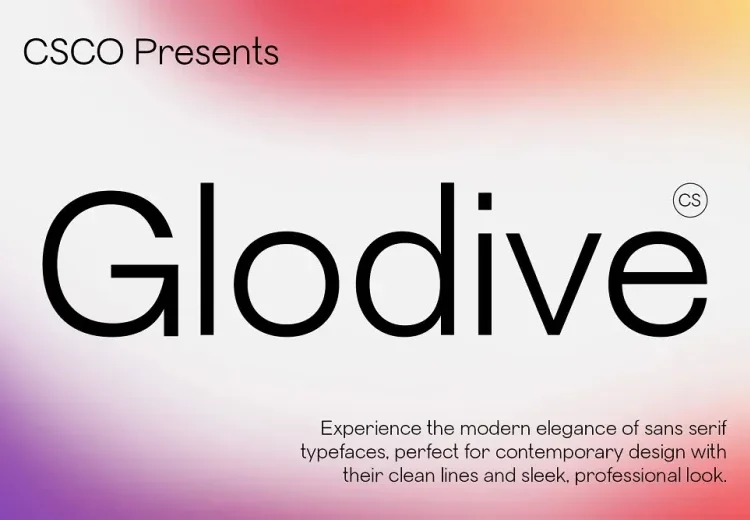
CS Glodive Font
CS Glodive is a contemporary sans-serif font that offers a sleek and refined aesthetic, making it a versatile choice for a wide range of design projects. With its clean lines and subtle detailing, CS Glodive presents a polished and professional appearance that is particularly well-suited for corporate and professional environments.
This font exudes a sense of modernity and efficiency, making it ideal for businesses looking to convey a clean and neat image. The simplicity of CS Glodive’s layout ensures that it remains versatile, fitting seamlessly into various contexts, from company logos to official documents like certificates. Its unobtrusive design allows it to blend into professional settings while still standing out with its understated elegance.
In addition to its corporate applications, CS Glodive is also well-suited for use in web design, advertisements, and other digital media. The font’s readability and clean appearance ensure that it performs well on screens, making it an excellent choice for websites and online content. Whether you’re designing a company website, creating advertisements, or developing marketing materials, CS Glodive delivers a sophisticated and cohesive look that enhances the overall professionalism of your work.
CS Glodive’s versatility extends to print media as well. Its clear and concise design makes it a reliable choice for printed materials such as brochures, business cards, and posters. The font’s balanced proportions and harmonious spacing contribute to its legibility, ensuring that your message is conveyed clearly and effectively.
For those seeking a font that combines modern aesthetics with professional functionality, CS Glodive is an excellent choice. Its clean and efficient design ensures that it meets the demands of various design projects, all while maintaining a contemporary and professional edge.